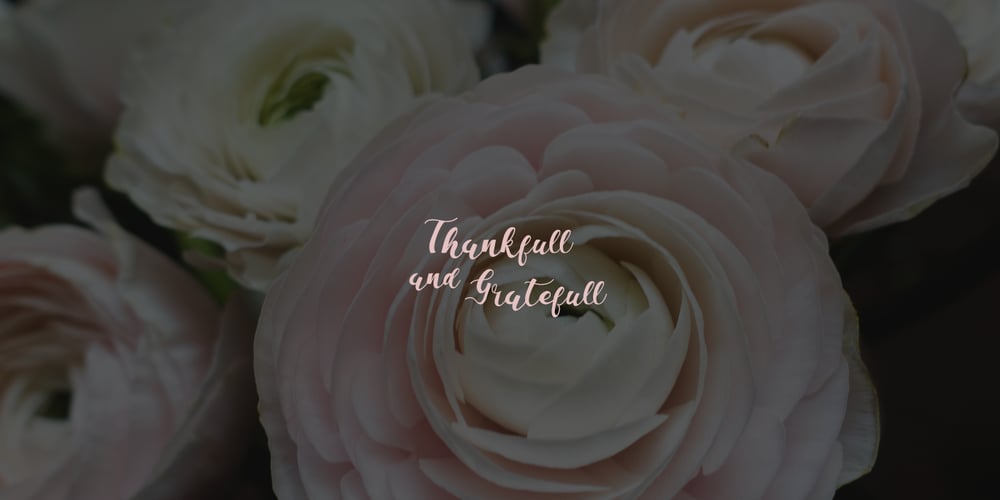
La Vie En Flower
La Vie En Flower font
La Vie En Flower Font Family was designed by Asep Rendi and published by Arendxstudio. La Vie En Flower contains 2 styles and family package options. La vie en Flower is a very feminine and beautiful font with a vintage dressing that is perfect for every project of your design. With “La vie en Flower” you get: Uppercase, lowercase, 2.numeral, punctuation & Symbol multi language support ligatures ss01 ss02 Need help? Please don’t hesitate to drop me an email at asep.rendi16@gmail.com if you have any issues. Comments & likes are also very appreciated! 🙂 Enjoy!